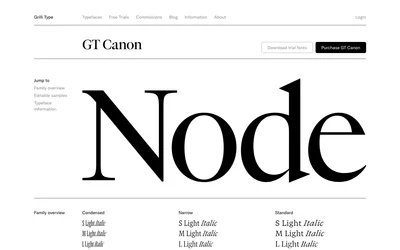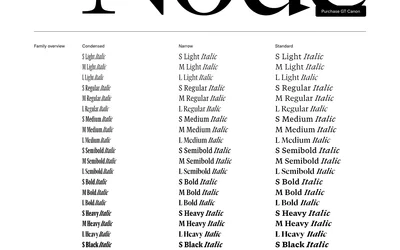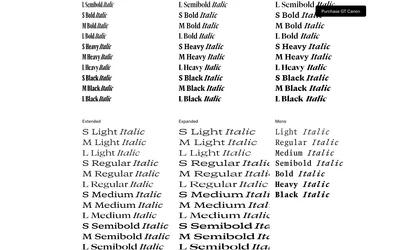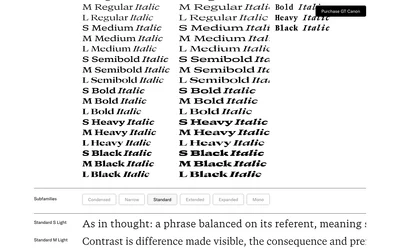
Cardinal vs GT Canon
Cardinal and GT Canon are both serif typefaces sharing a modern foundation. Where Cardinal leans elegant, GT Canon brings transitional. Compare which suits your Editorial project.
| Feature | Cardinal | GT Canon |
| Source | Production Type | Grilli Type |
Recommended: Cardinal
- elegant design character
- Suited for Headlines and Luxury
- From production-type
Consider: GT Canon
- transitional design character
- Suited for Corporate and Packaging
- From grilli-type